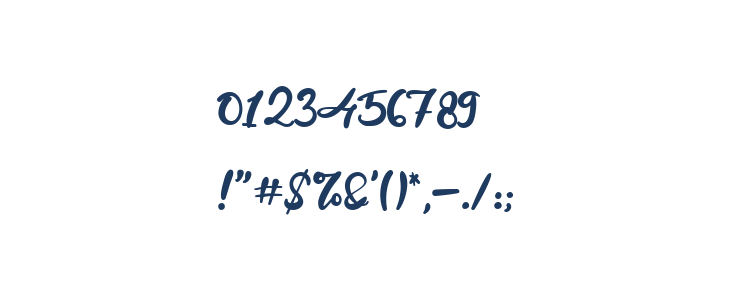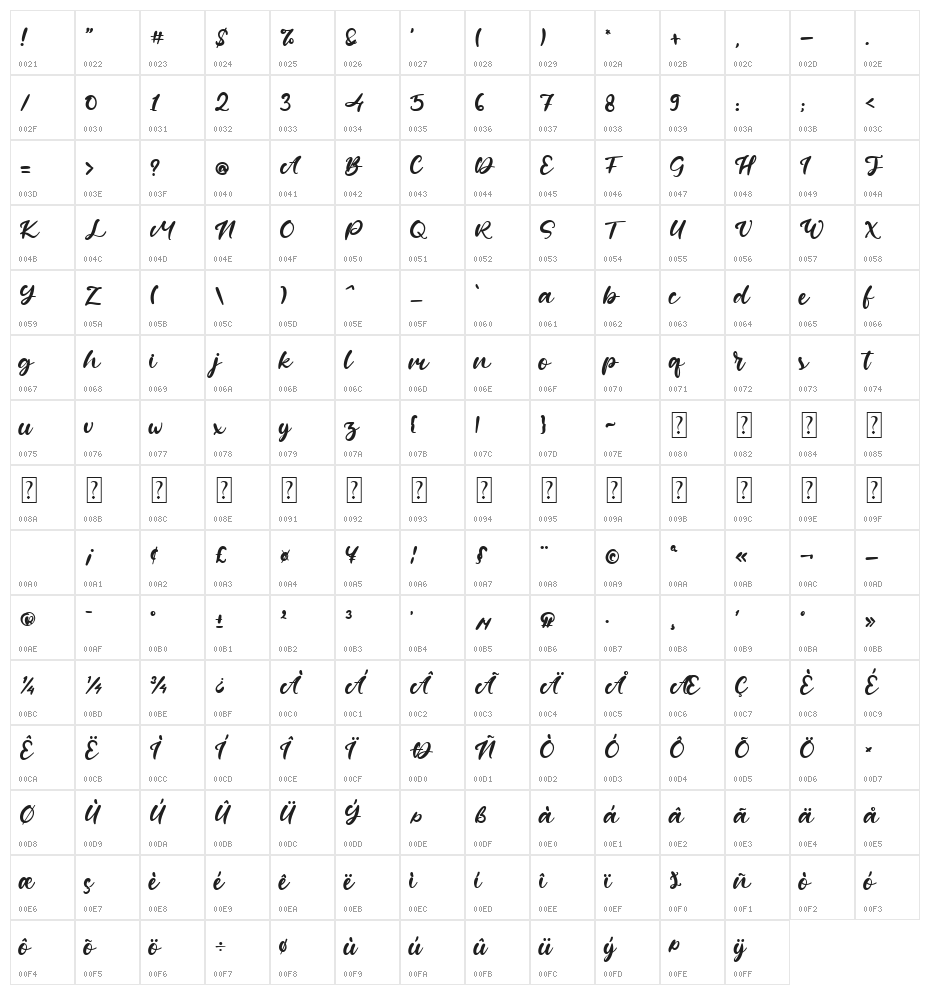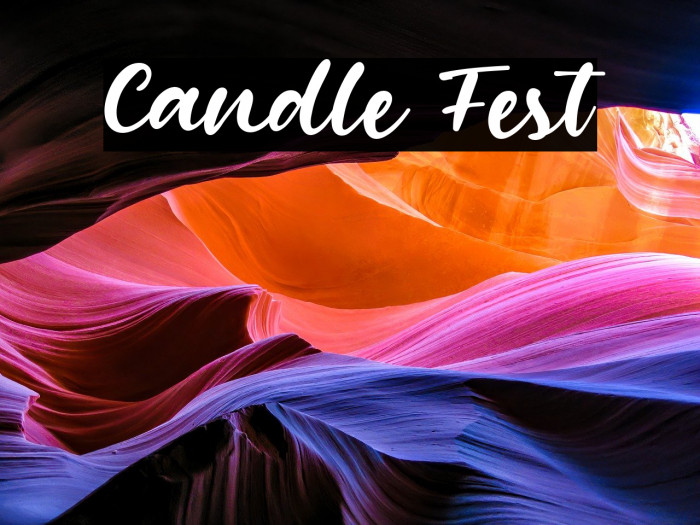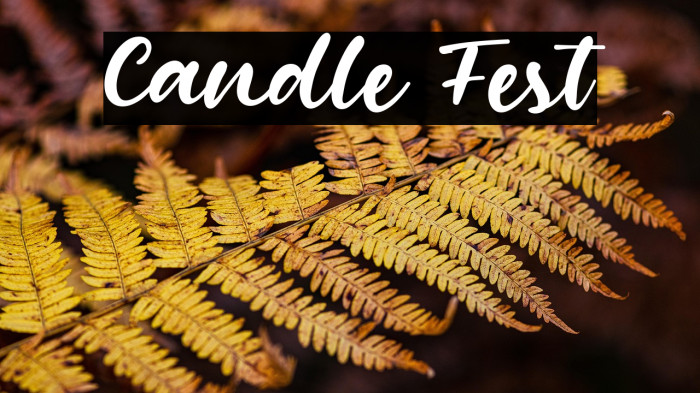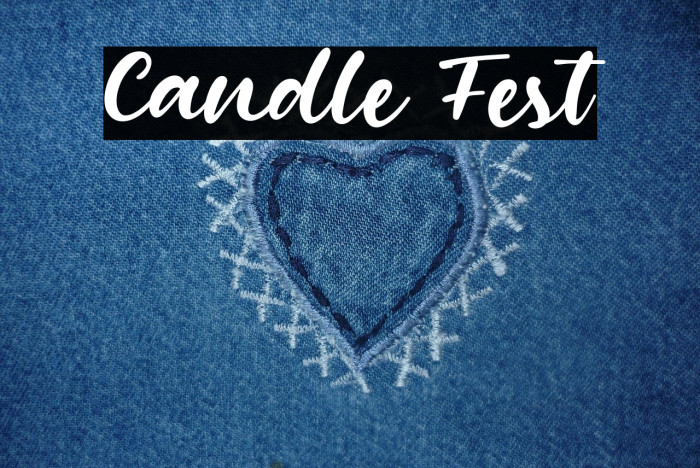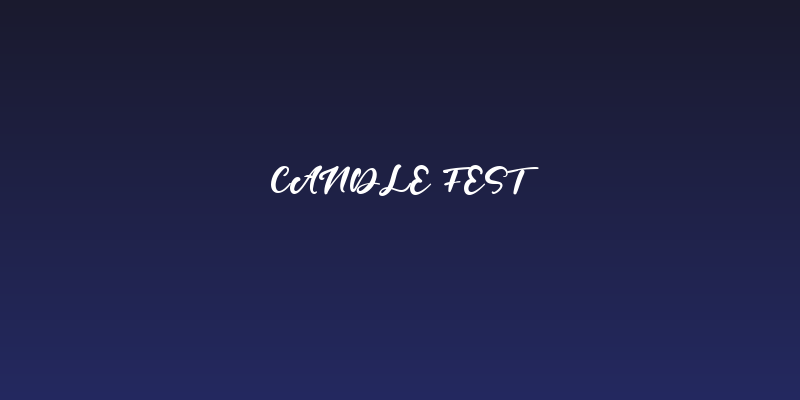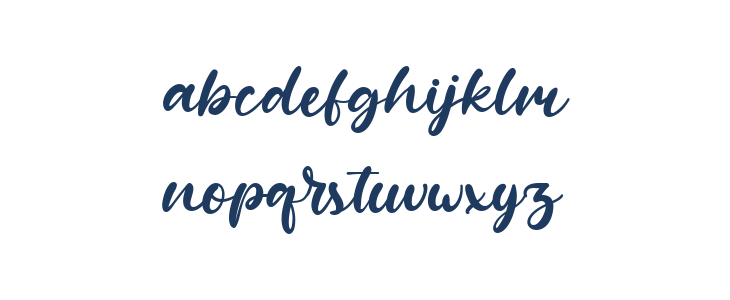
Candle Fest Font
Candle Fest Description
This font features a flowing, cursive style with smooth, connected strokes that give it a handwritten appearance. The uppercase letters are bold and elegant, with a slight slant that adds a sense of motion and grace. The lowercase letters maintain the same fluidity, with rounded edges and consistent stroke widths. Numbers and special characters are designed to match the overall aesthetic, ensuring a cohesive look across all text. The font's style is both modern and classic, making it versatile for various design needs.
| Overall Style | Modern, Classic |
| Use Case | Logos, Invitations, Greeting Cards |
| Proposed Projects | Ideal for wedding invitations, greeting cards, branding projects, and elegant logo designs. |